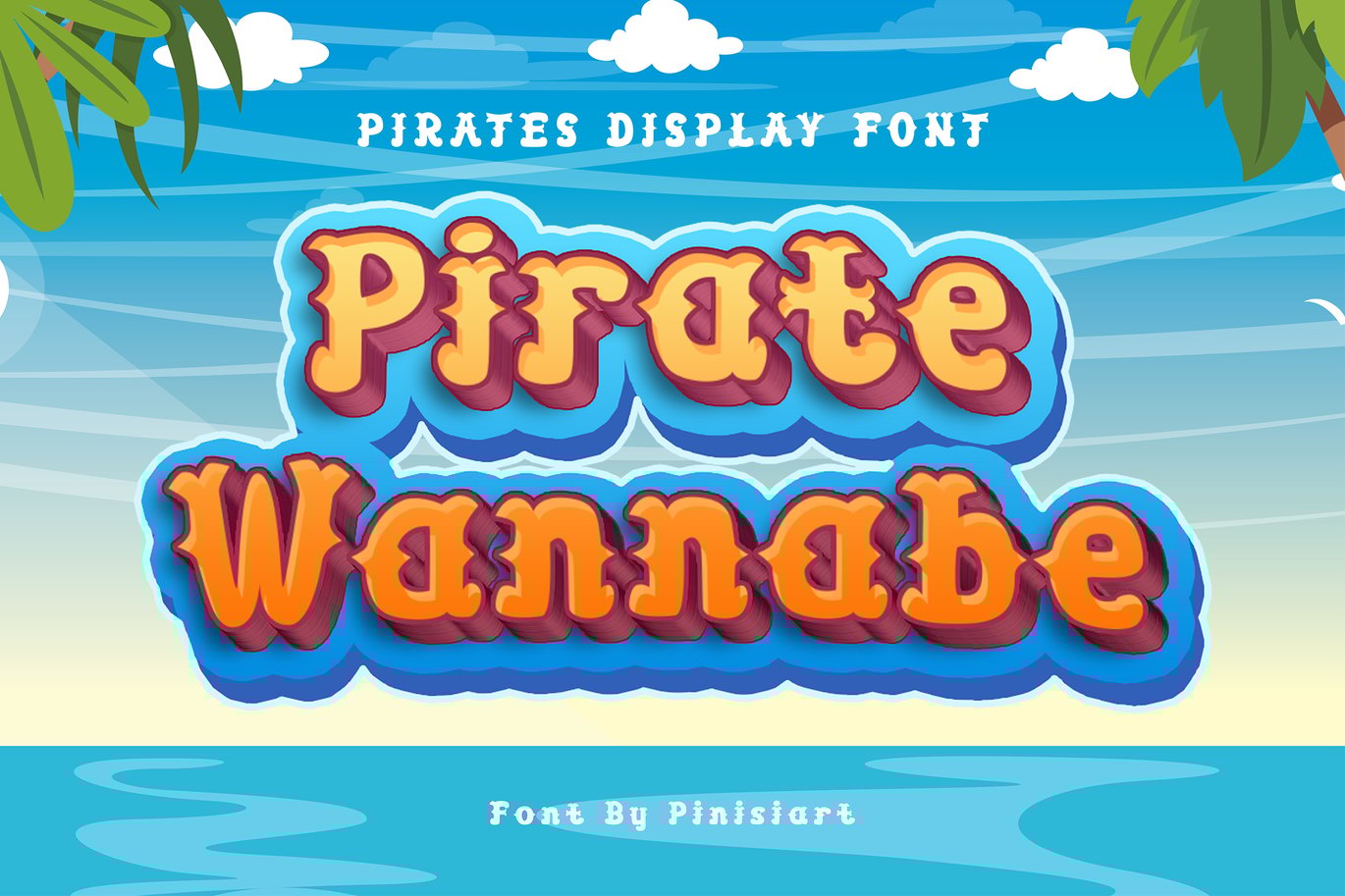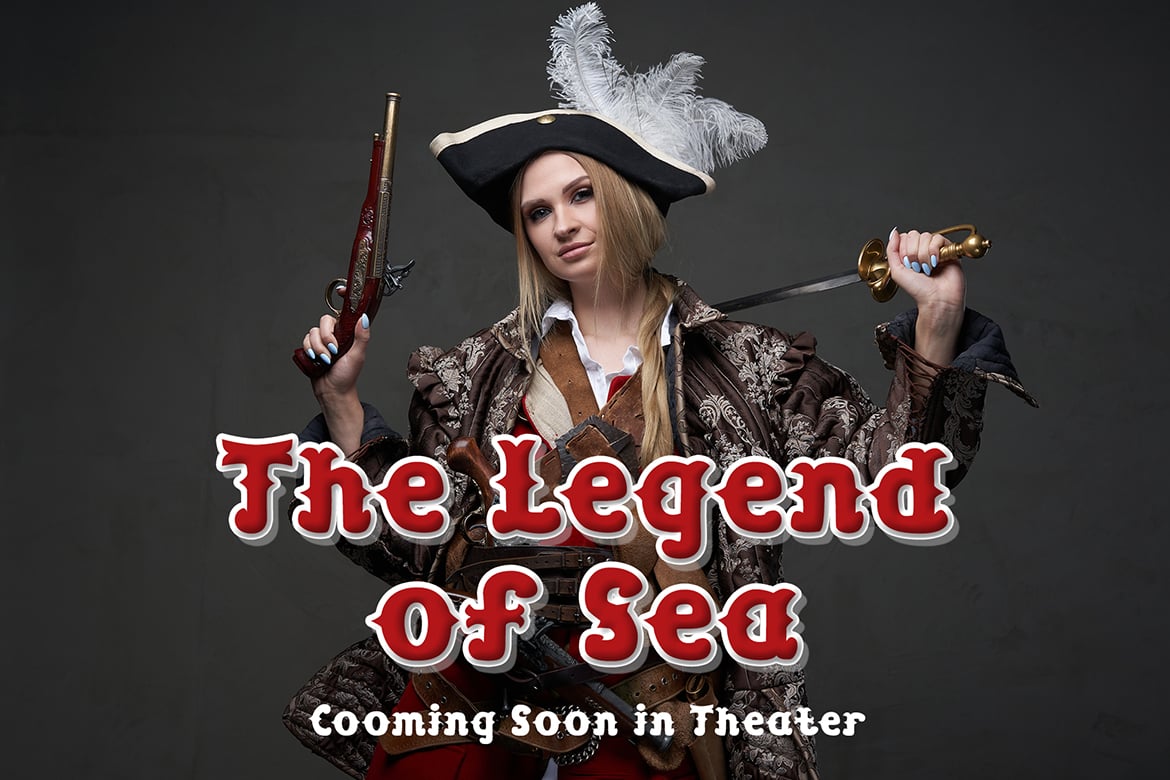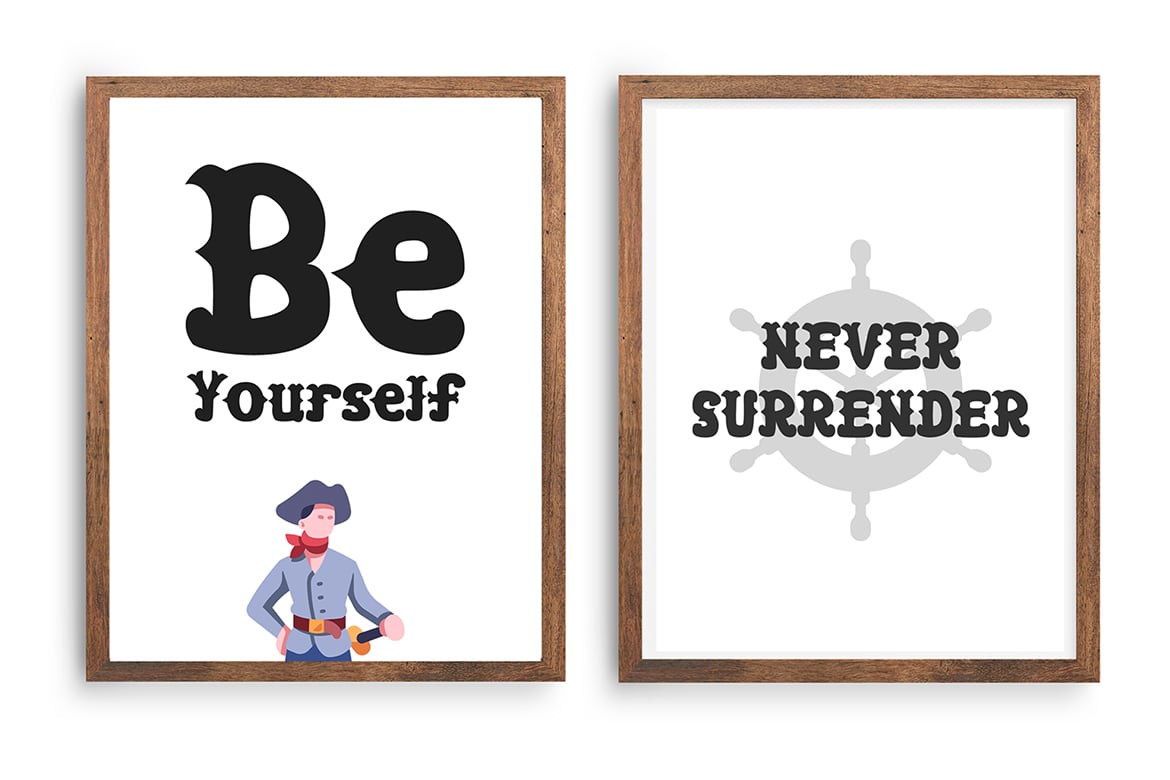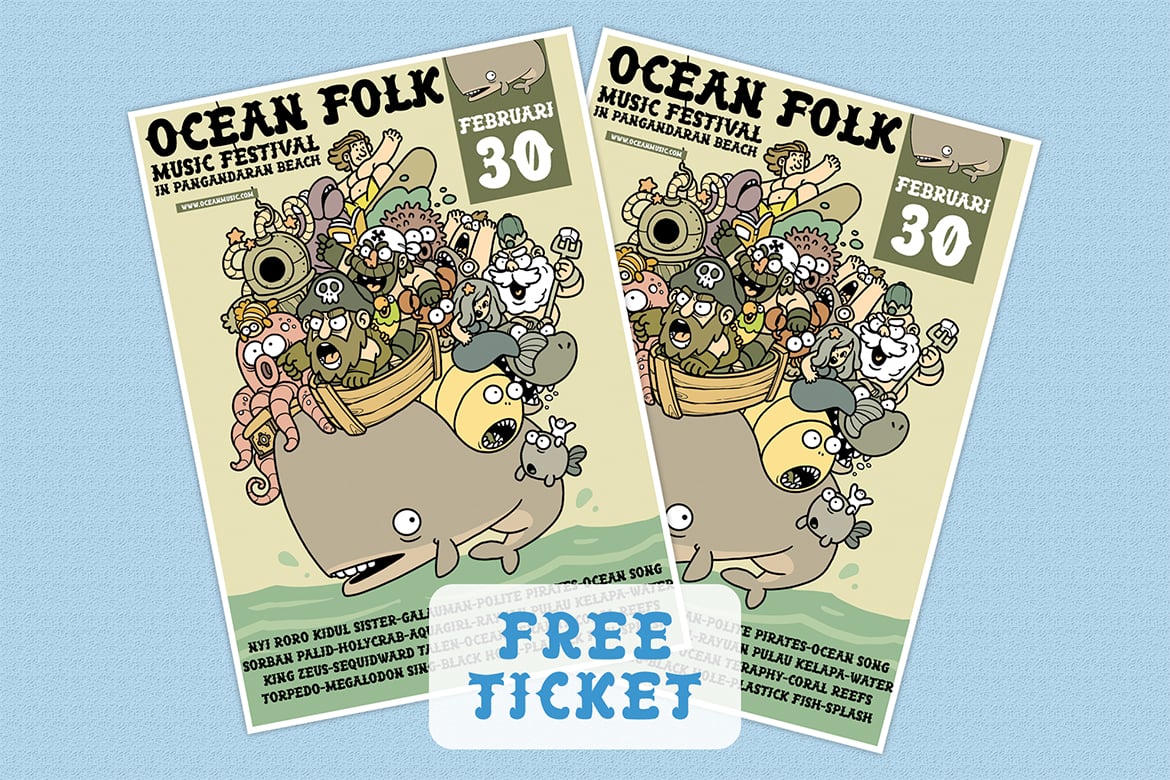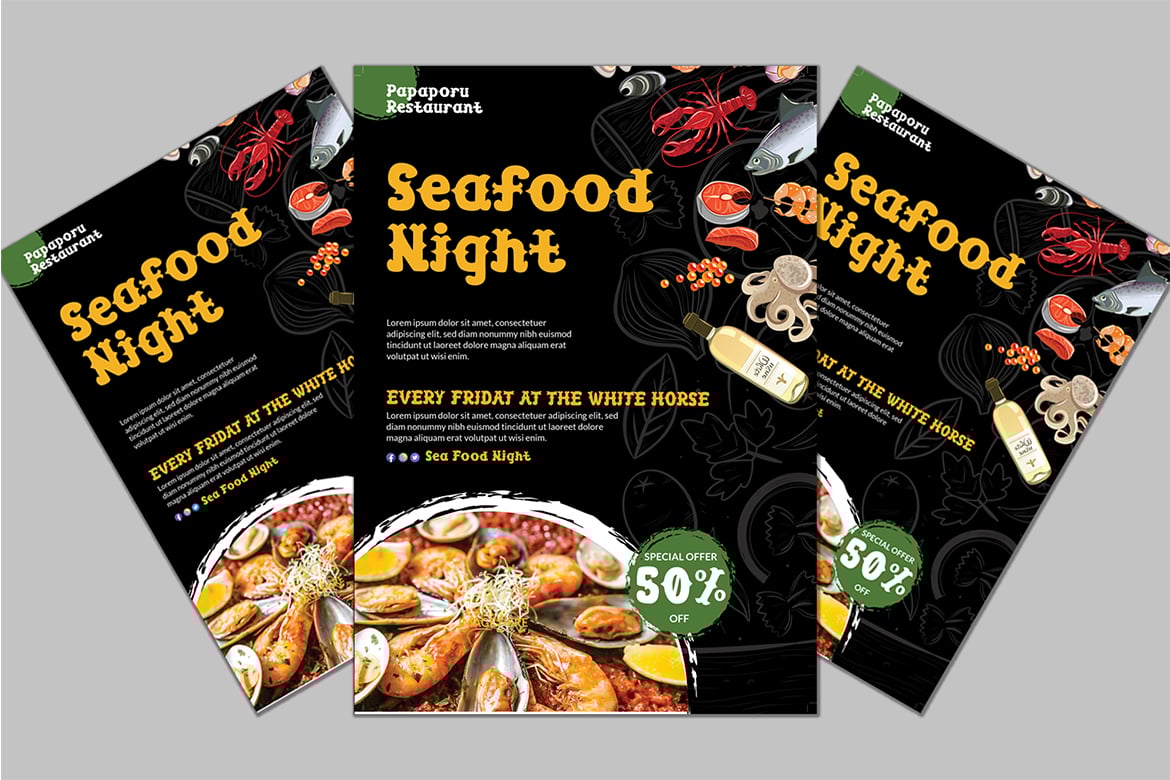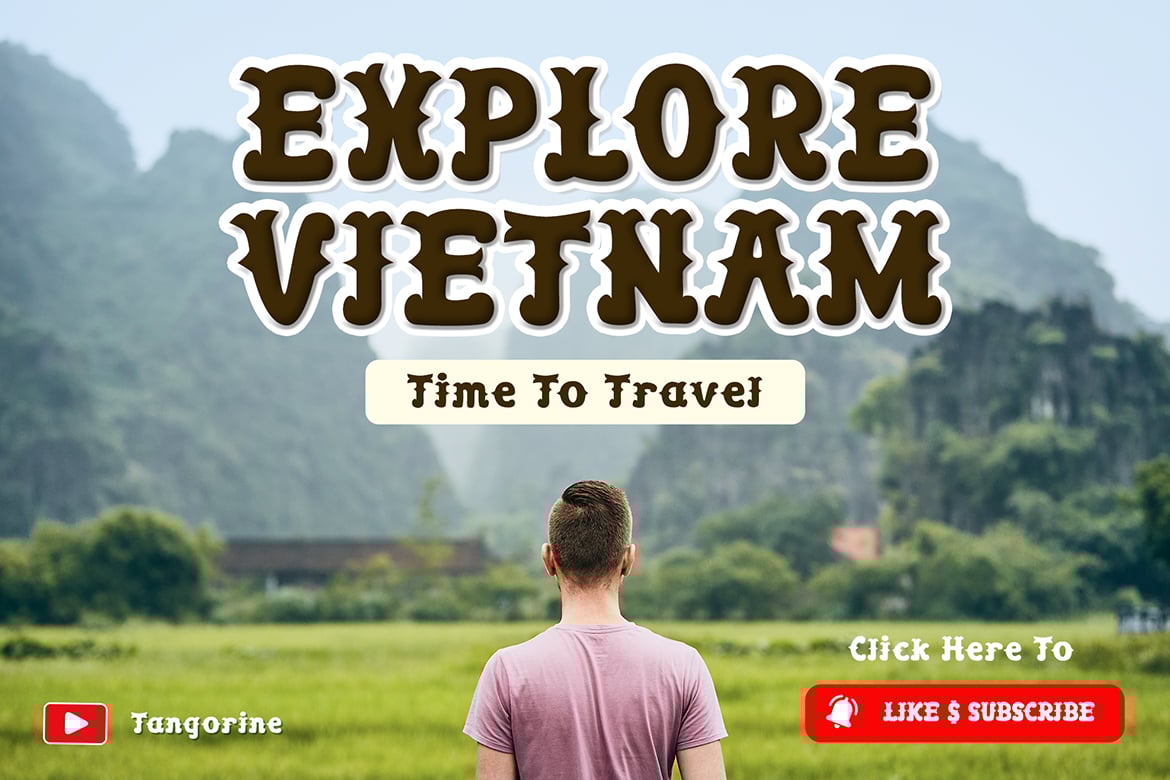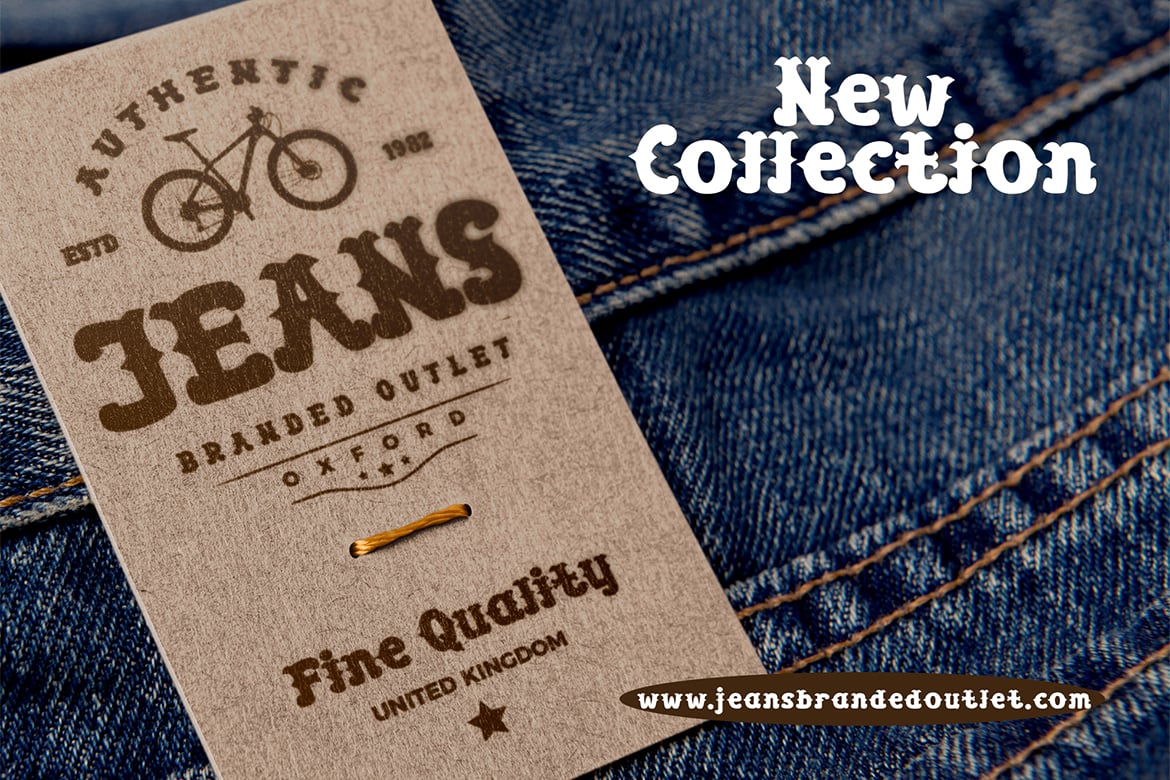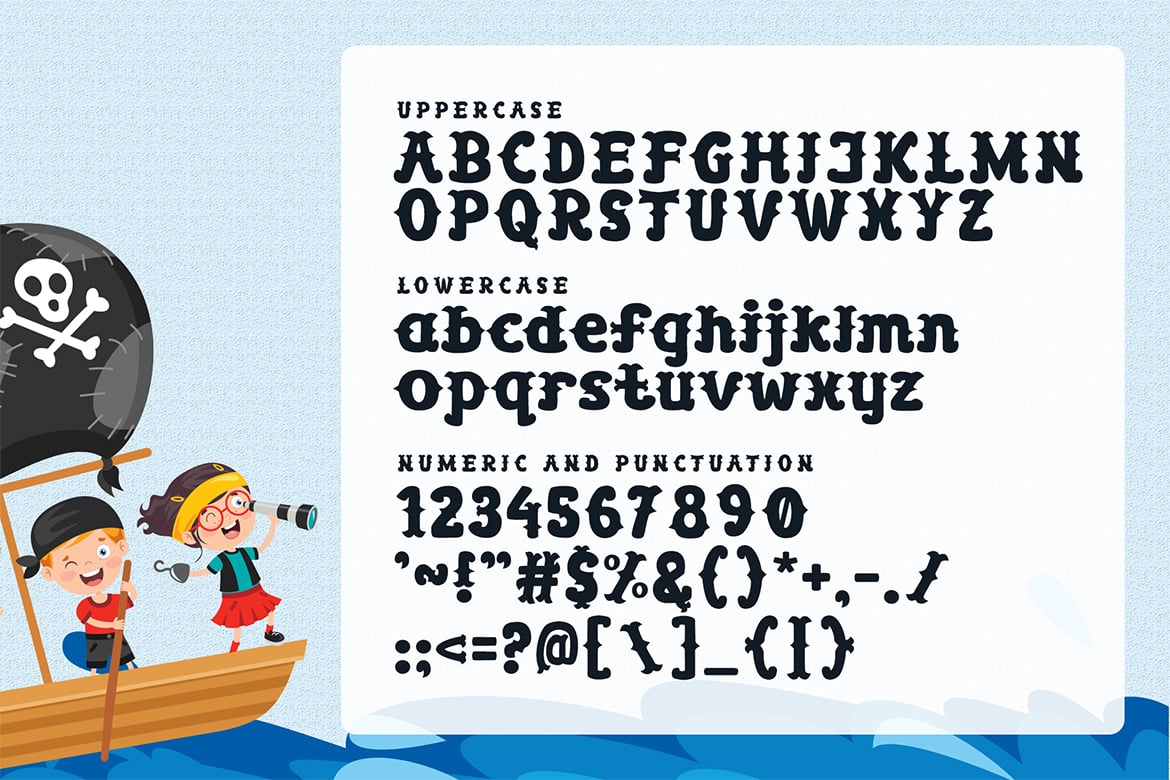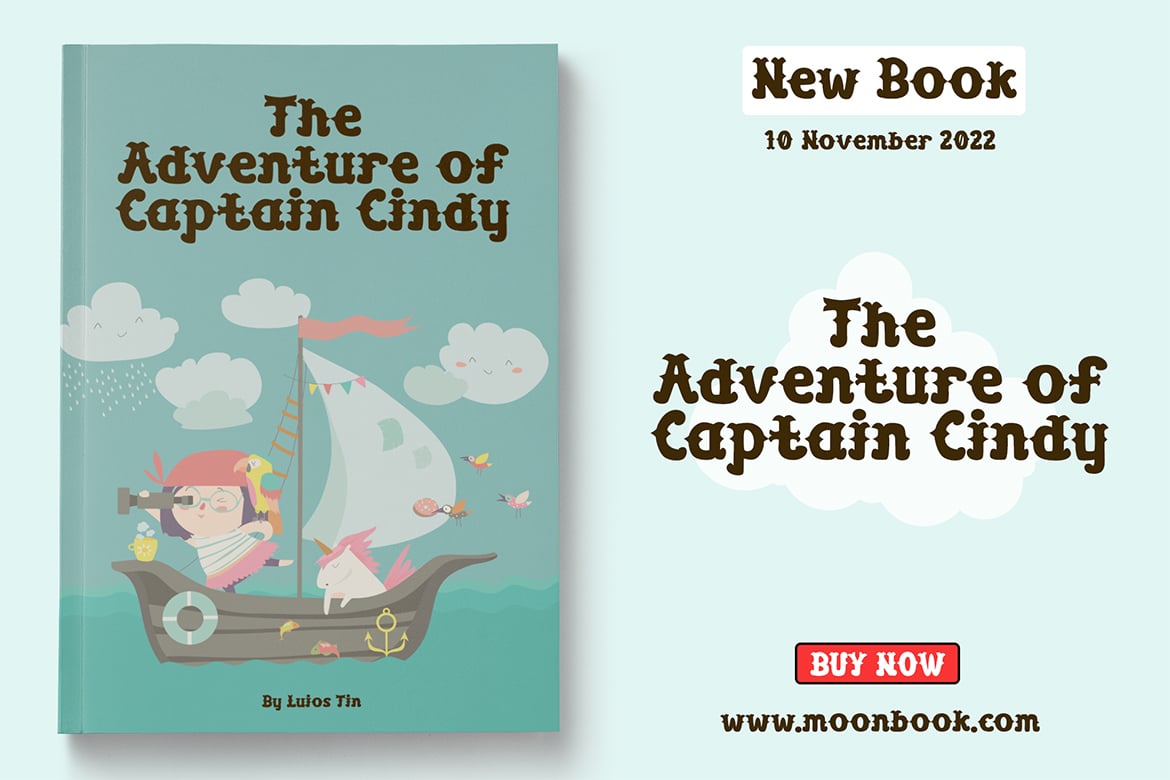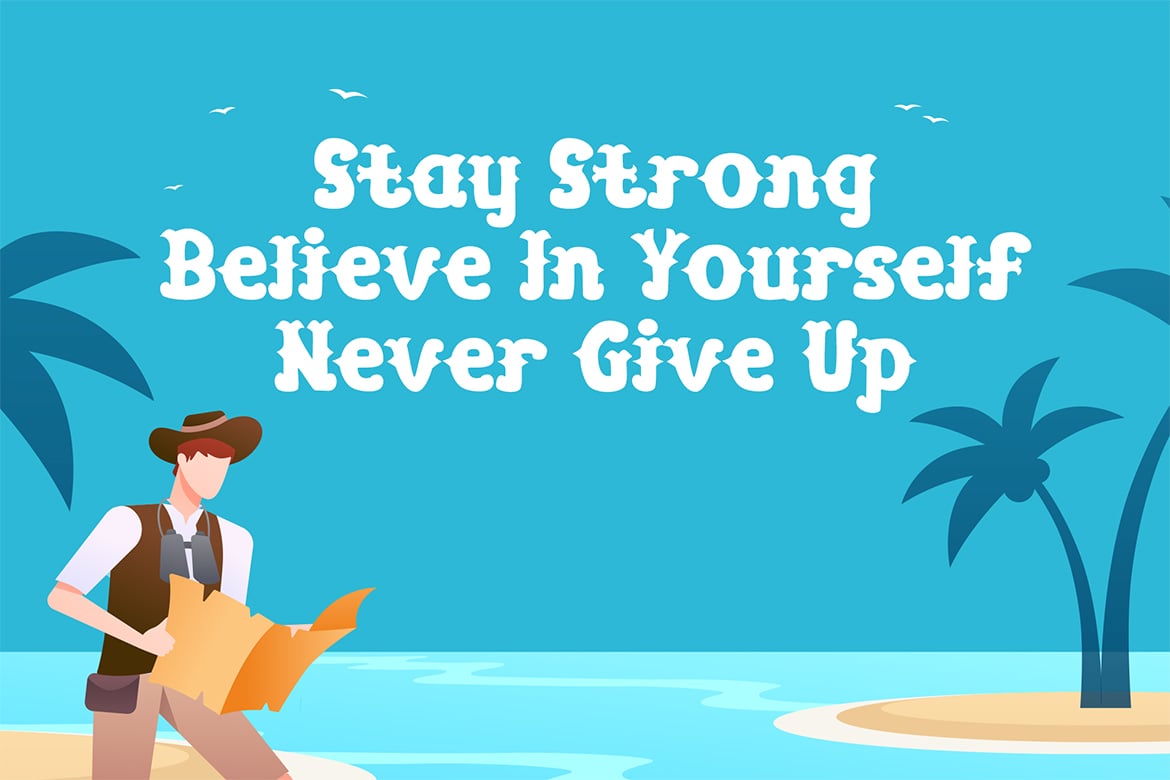
Pirate Wannabe – Display Font
With spurs and classic look of it, Pirate Wannabe will be standout in the crowd. The cuteness and fun vibe of it, will emphasize the children vibe on it.
Suit perfectly for young age with adventurous side segmented magazine, poster, movie title, music poster, youtube covers, youtube thumbnails, social media page covers and so on…